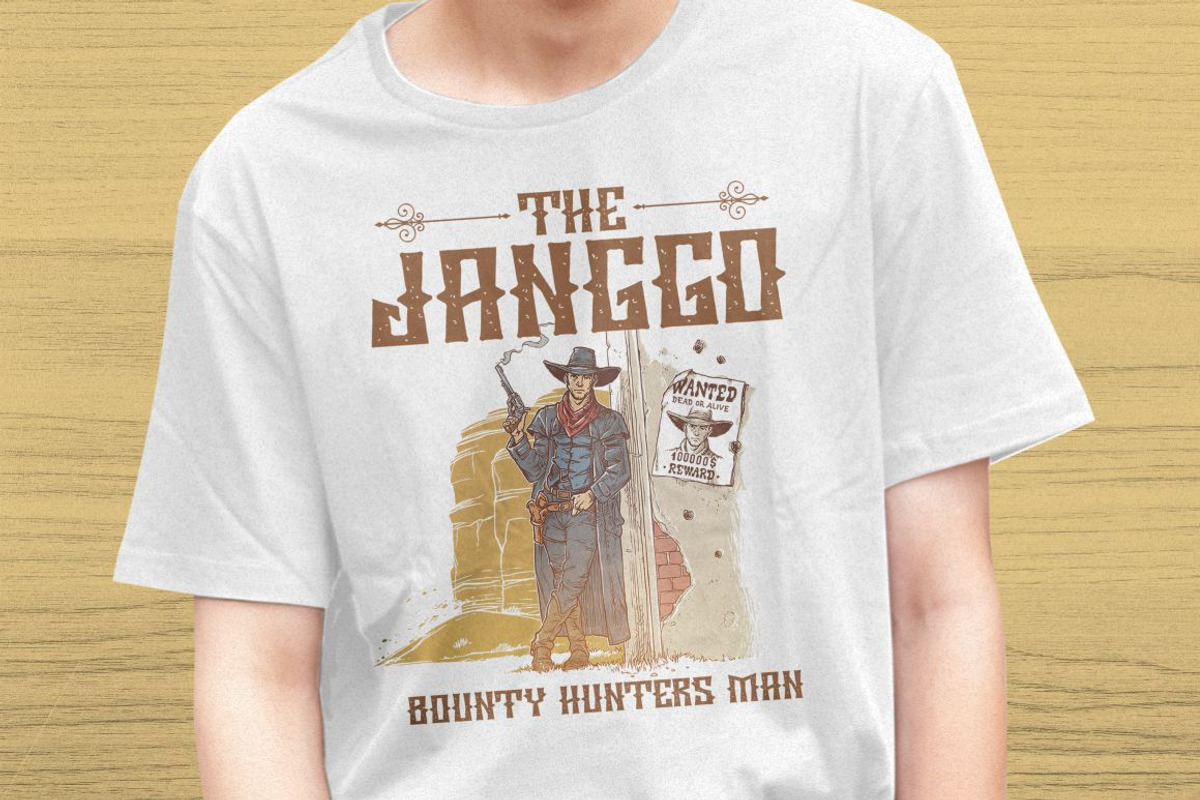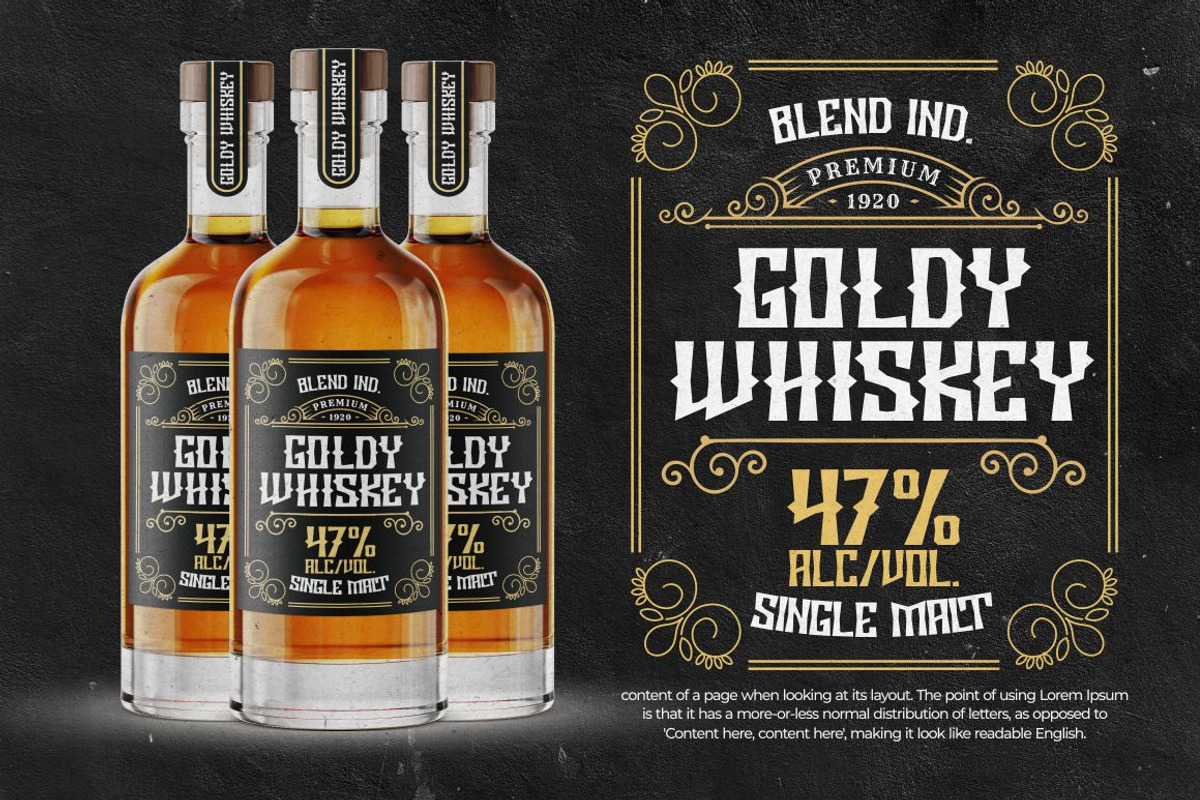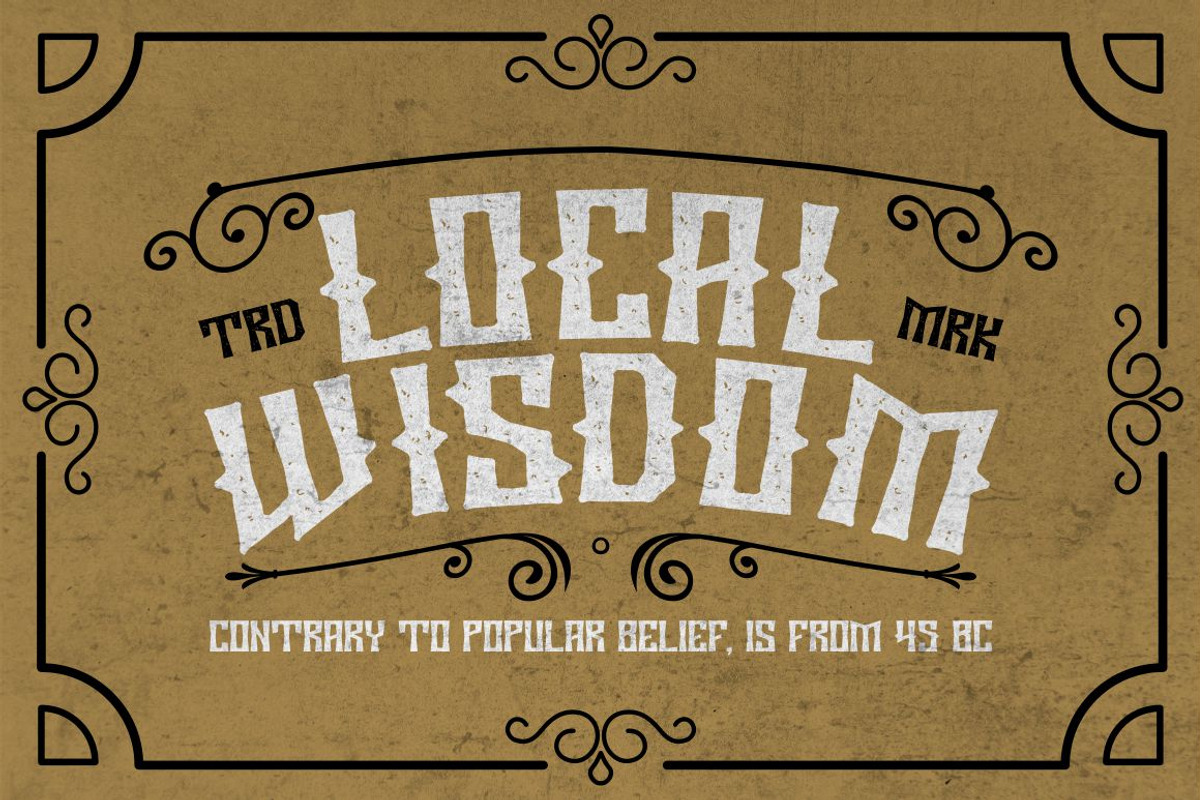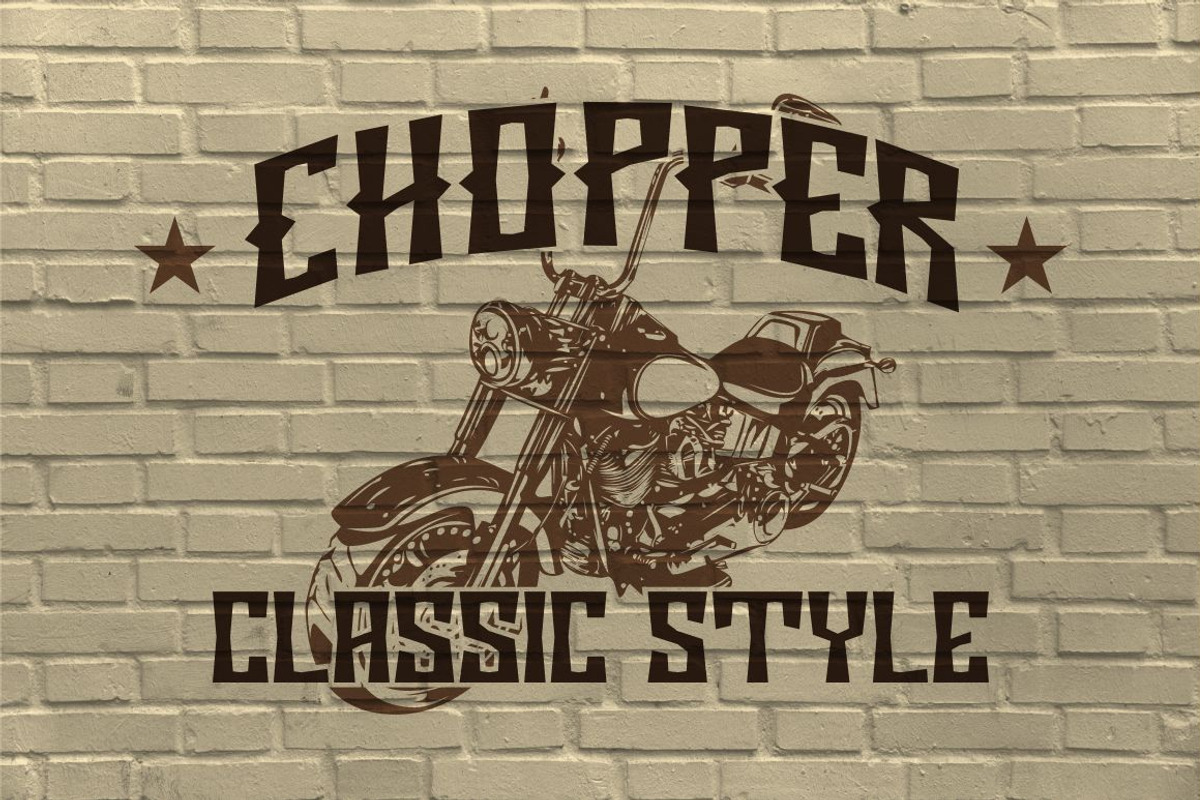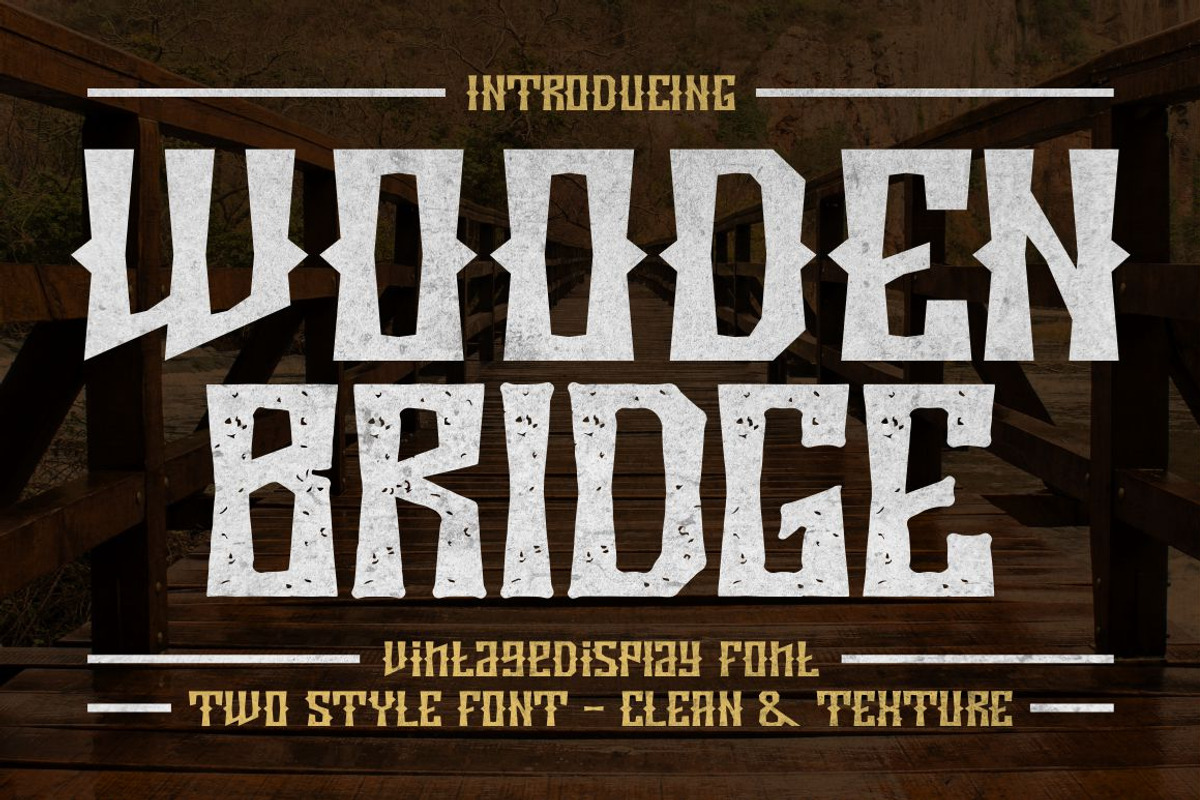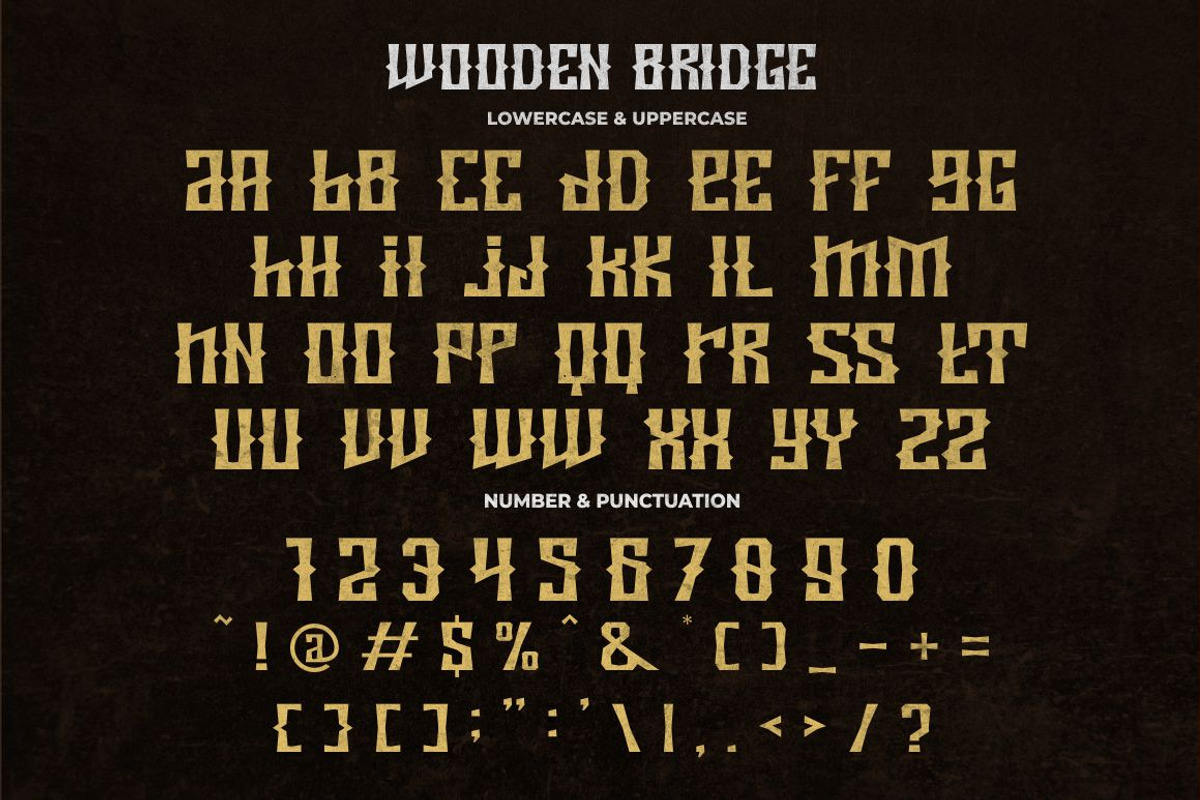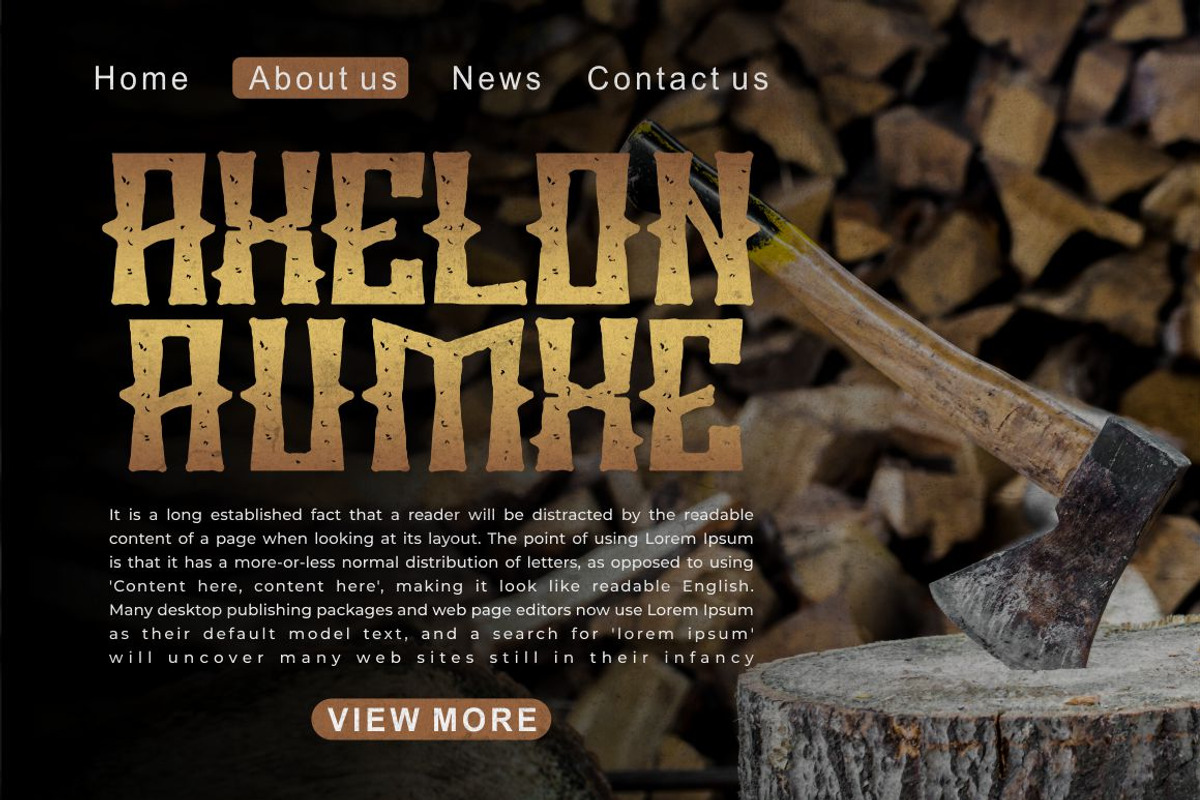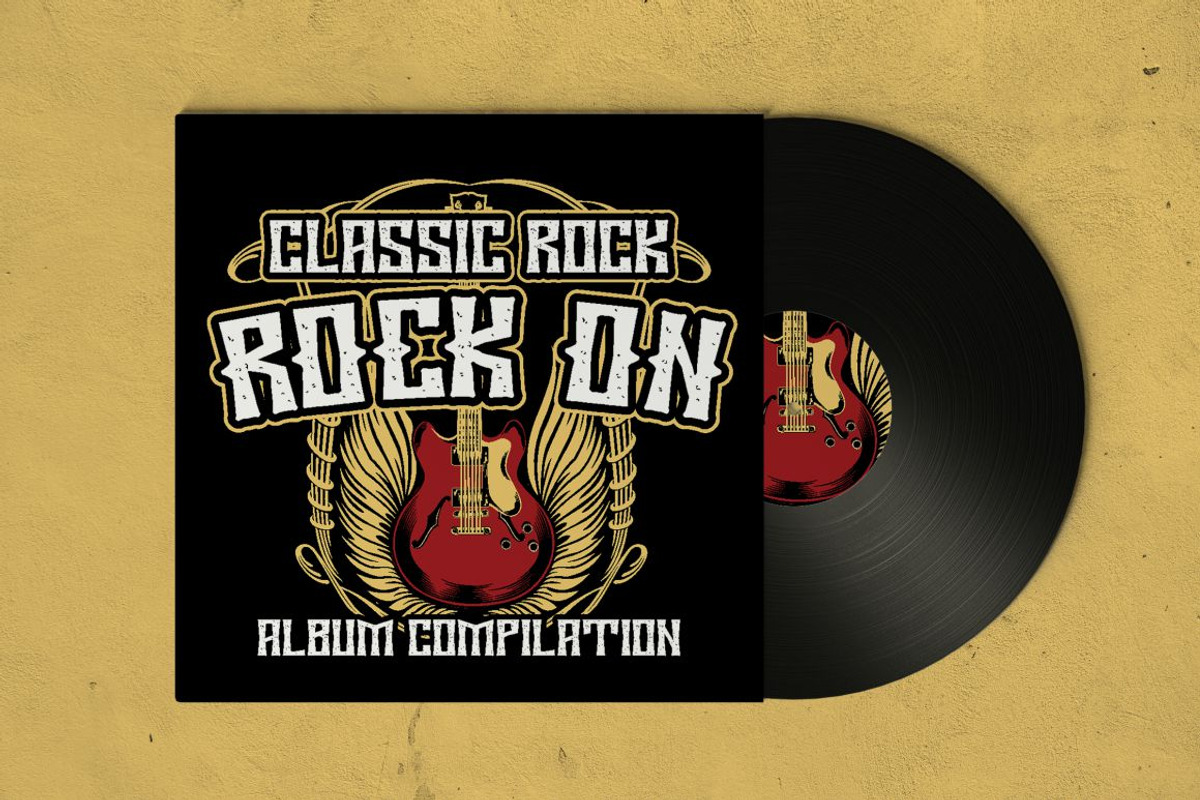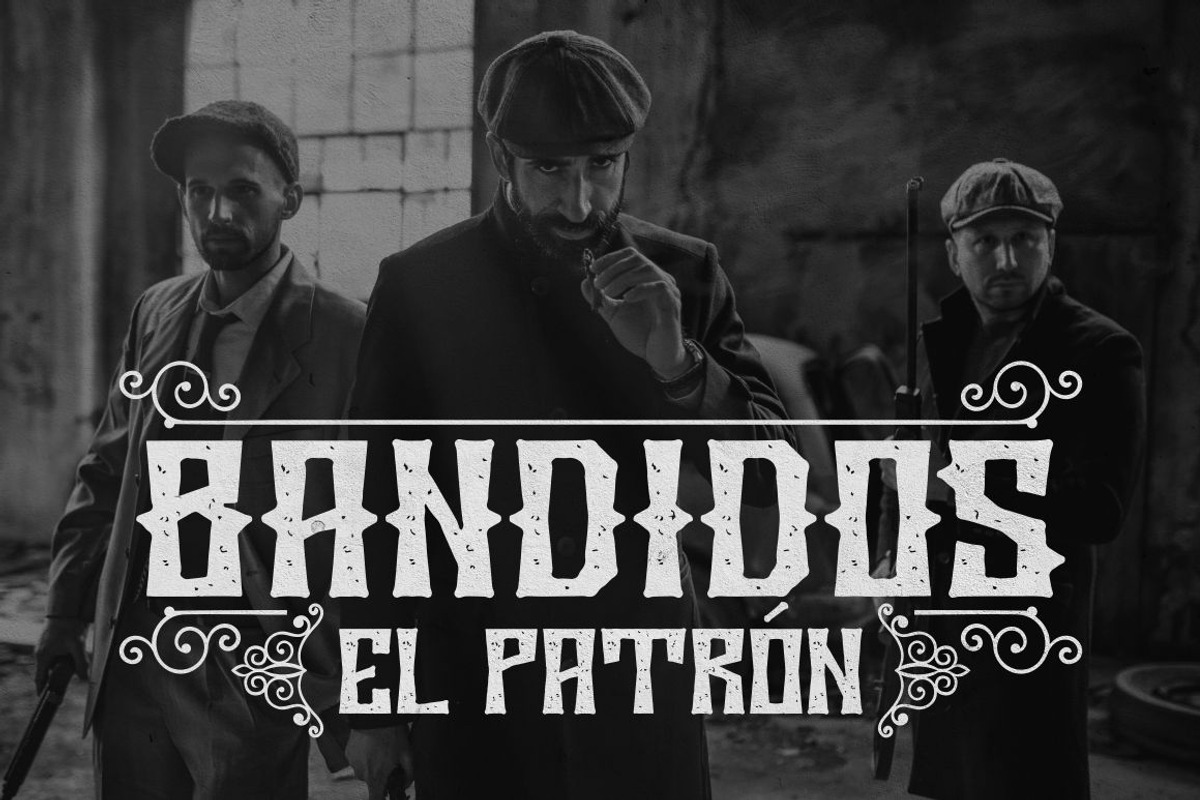
Wooden Bridge - Vintage Display Font
Wooden Bridge - Vintage Display Font. The line of Wooden Bridge is also very unique, so it makes seem irregular, What makes Wooden Bridges unique is vintage touch in the character. Wooden Bridge is inspired by display of the 1970s posters but made flexible enough for everyday use.
Wooden Bridge best uses for title, invitation, heading, cover, poster, logos, quotes, product packaging, merchandise, social media & greeting cards and many more
The alternative characters were divided into several Open Type features such as Swash, Stylistic Sets, Stylistic Alternates, Contextual Alternates, and Ligature. The Open Type features can be accessed by using Open Type savvy programs such as Adobe Illustrator, Adobe InDesign, Adobe Photoshop Corel Draw X version, And Microsoft Word. Wooden Bridge is also support multi language.